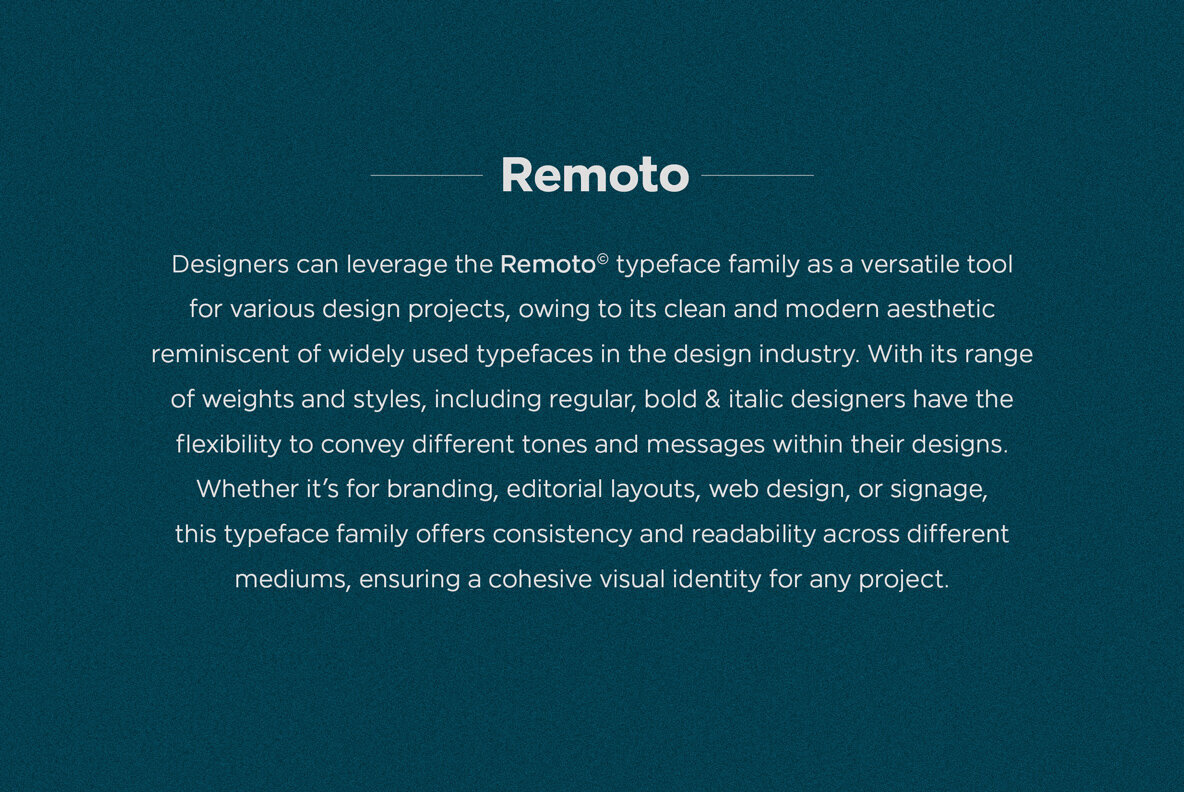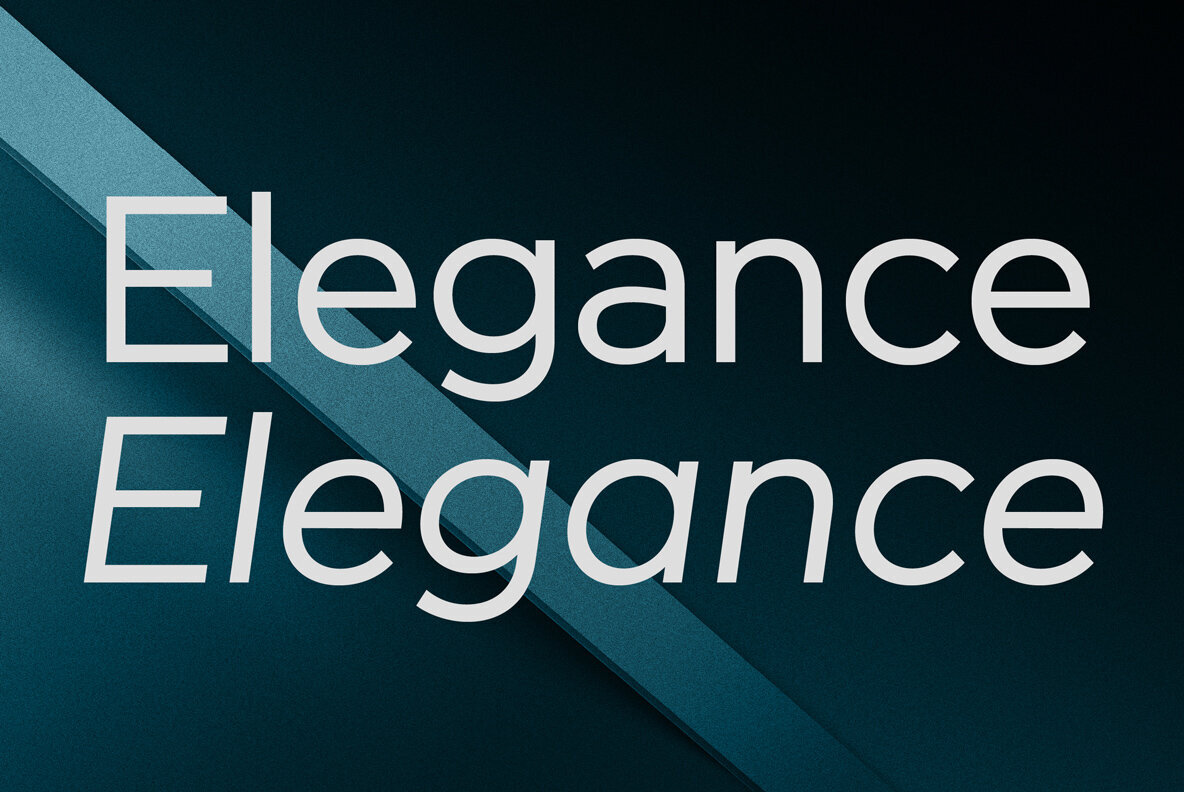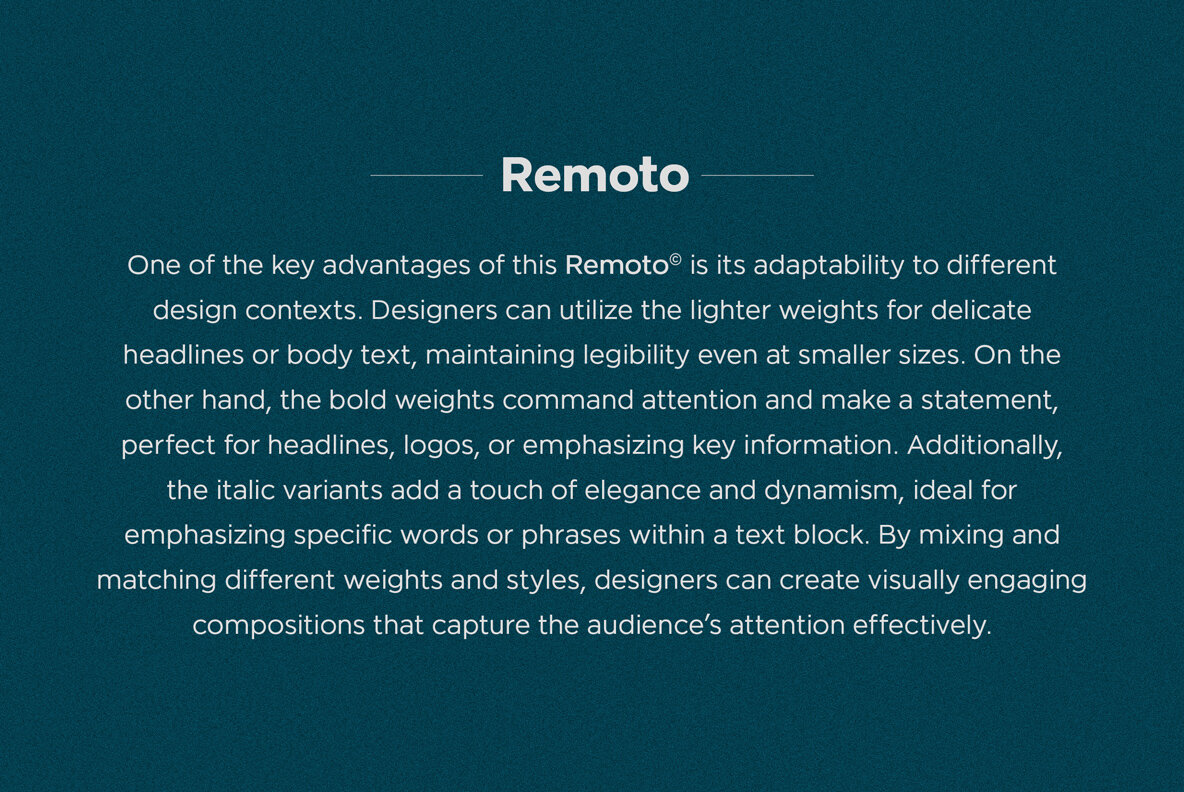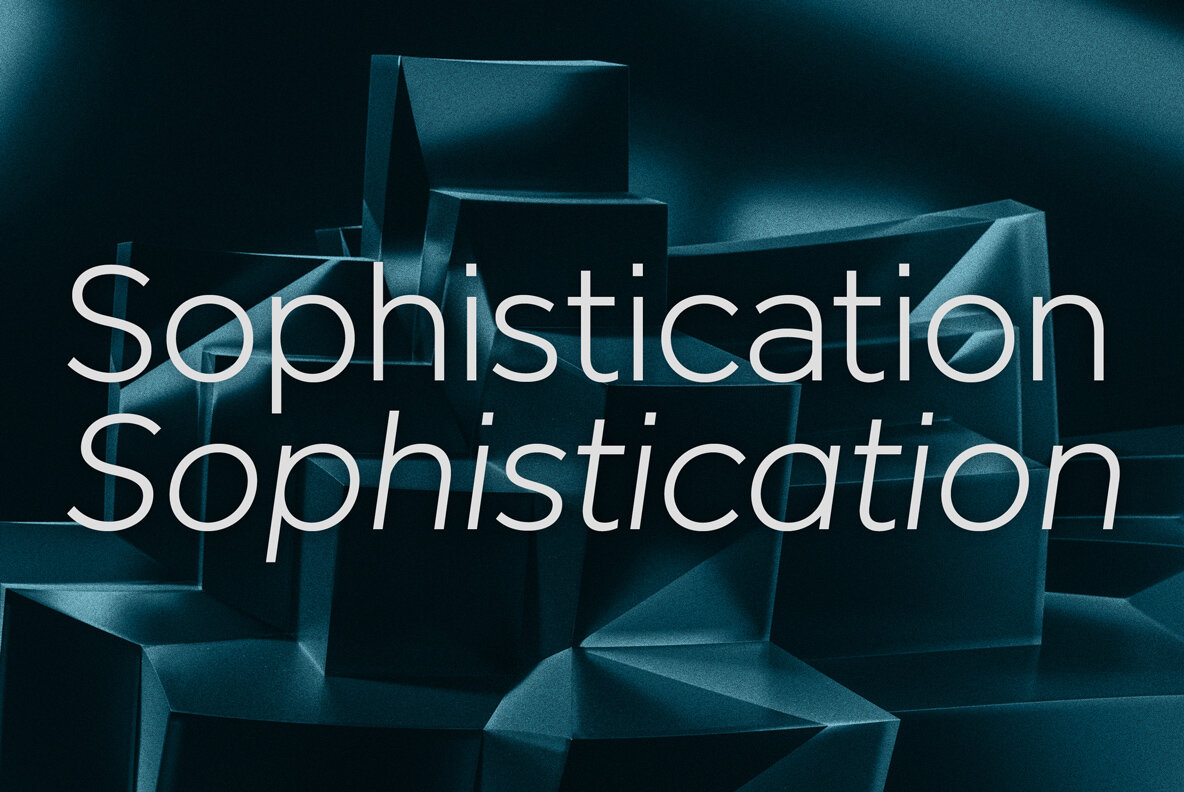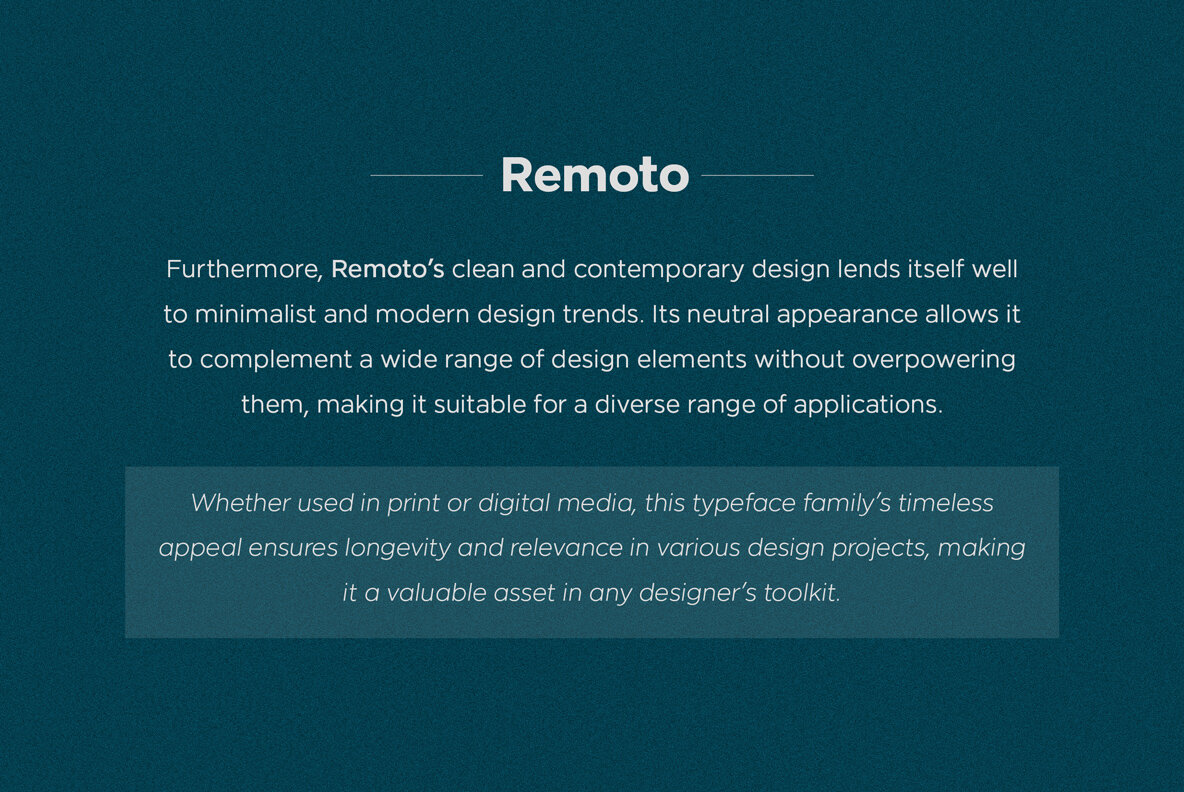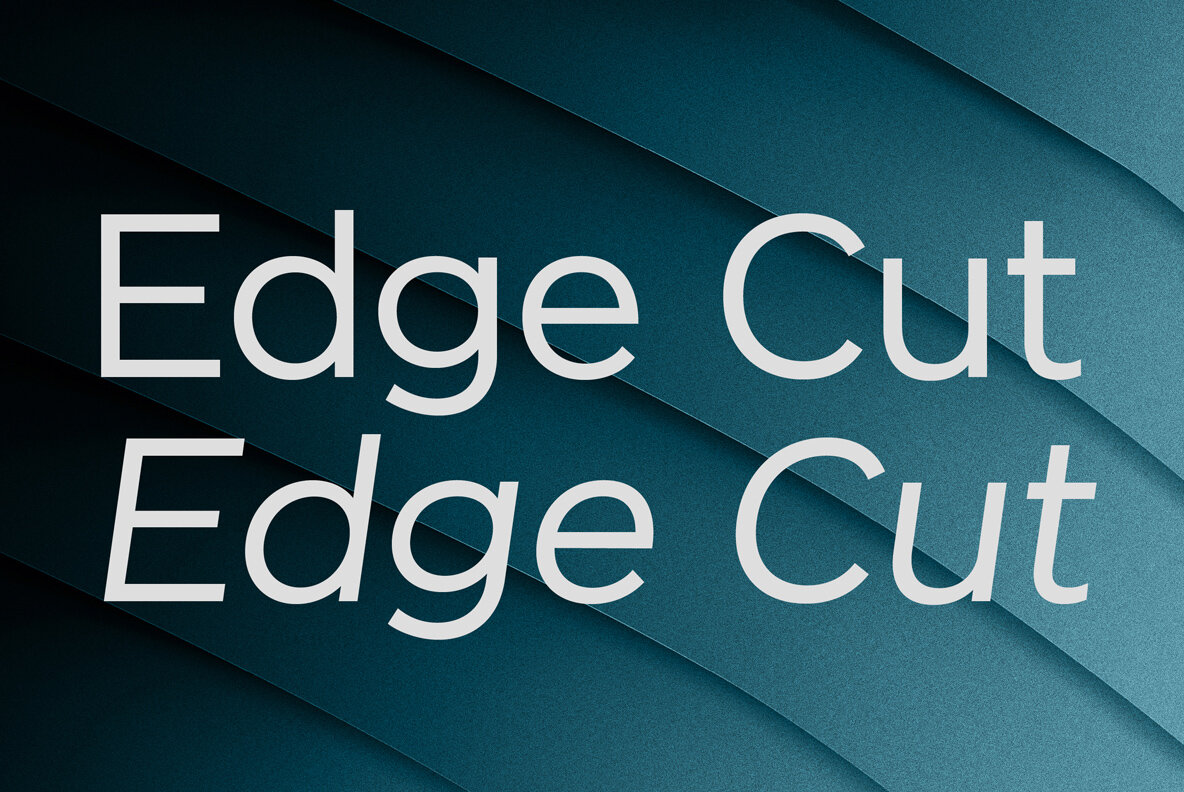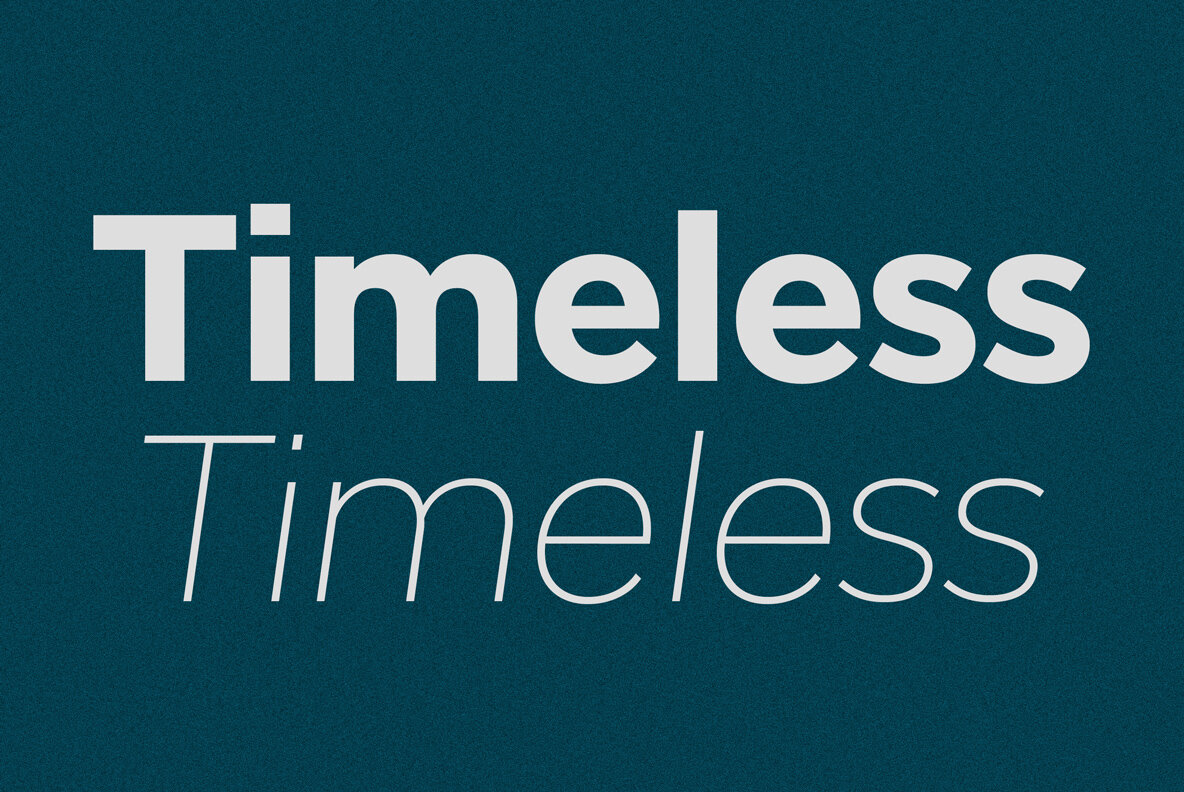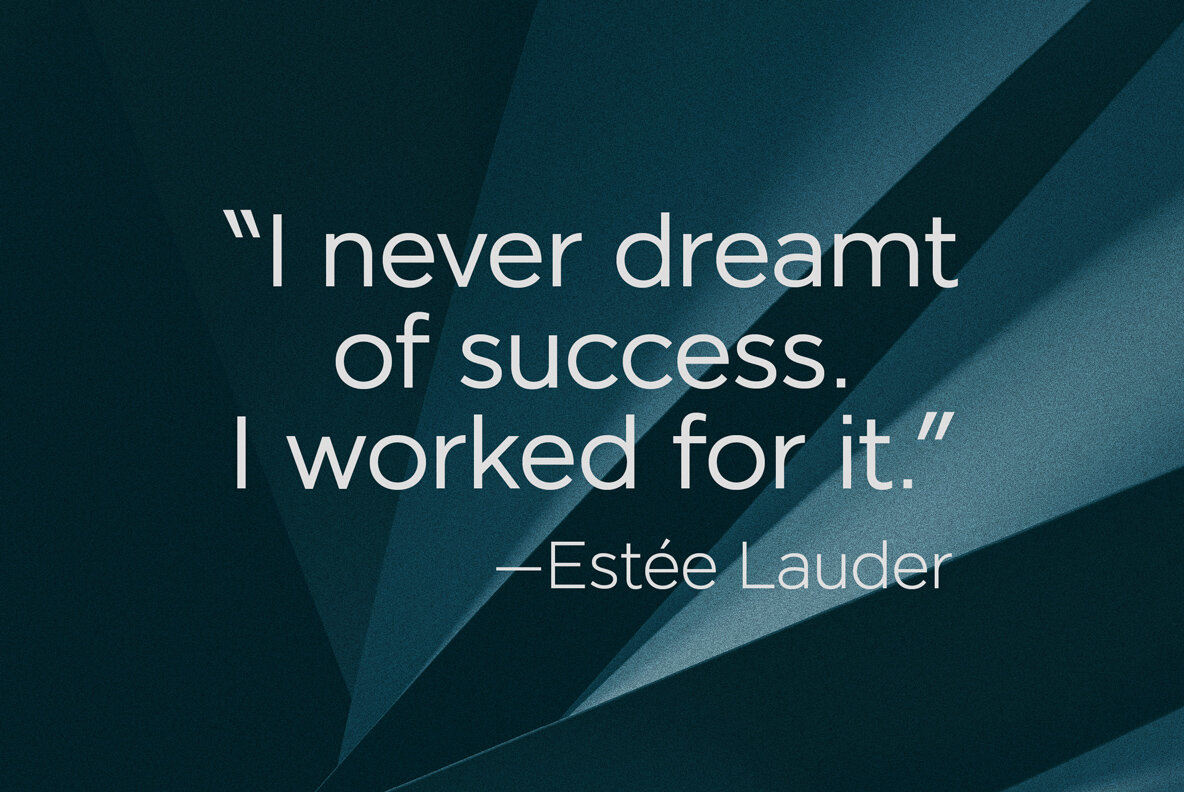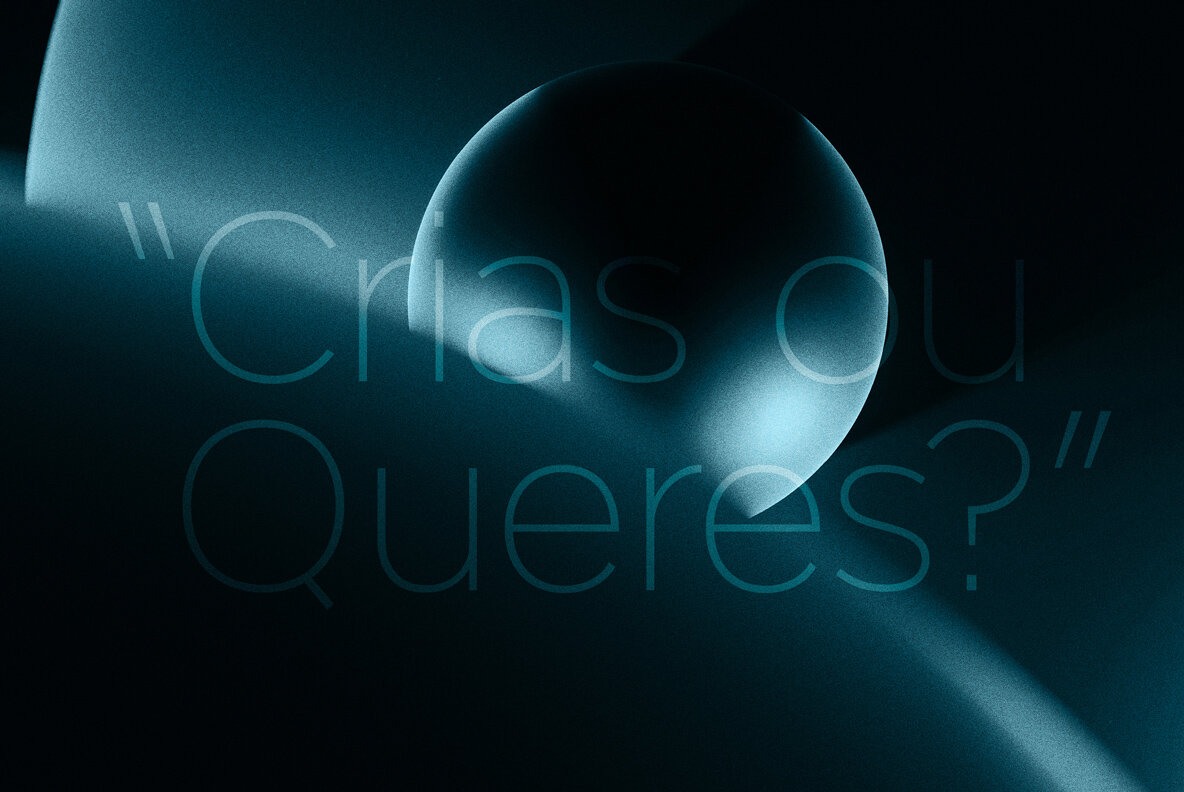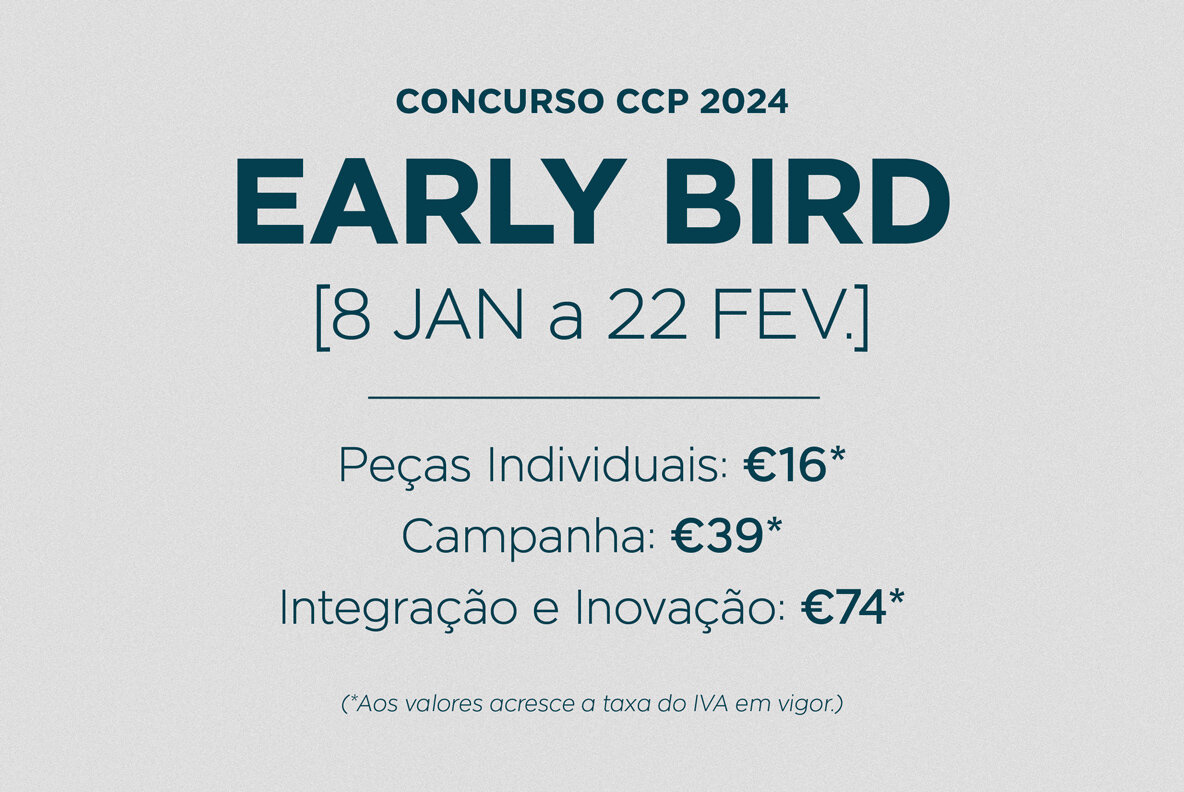
Remoto Font
Designers can leverage the Remoto typeface family as a versatile tool for various design projects, owing to its clean and modern aesthetic reminiscent of widely used typefaces in the design industry. With its range of weights and styles, including regular, bold & italic designers have the flexibility to convey different tones and messages within their designs. Whether it’s for branding, editorial layouts, web design, or signage, this typeface family offers consistency and readability across different mediums, ensuring a cohesive visual identity for any project. One of the key advantages of this Remoto is its adaptability to different design contexts. Designers can utilize the lighter weights for delicate headlines or body text, maintaining legibility even at smaller sizes. On the other hand, the bold weights command attention and make a statement, perfect for headlines, logos, or emphasizing key information. Additionally, the italic variants add a touch of elegance and dynamism, ideal for emphasizing specific words or phrases within a text block. By mixing and matching different weights and styles, designers can create visually engaging compositions that capture the audience’s attention effectively. Furthermore, Remoto’s clean and contemporary design lends itself well to minimalist and modern design trends. Its neutral appearance allows it to complement a wide range of design elements without overpowering them, making it suitable for a diverse range of applications. Whether used in print or digital media, this typeface family’s timeless appeal ensures longevity and relevance in various design projects, making it a valuable asset in any designer’s toolkit.